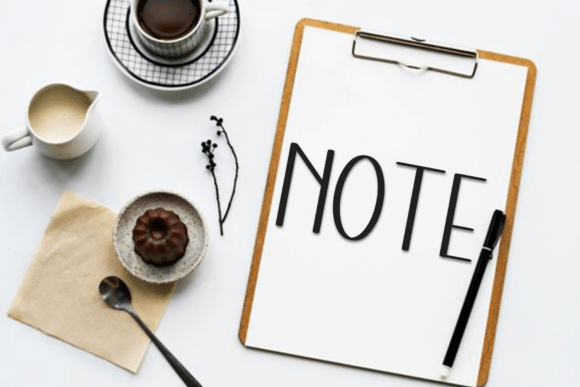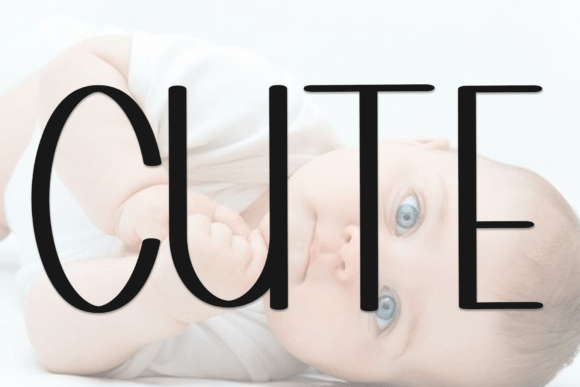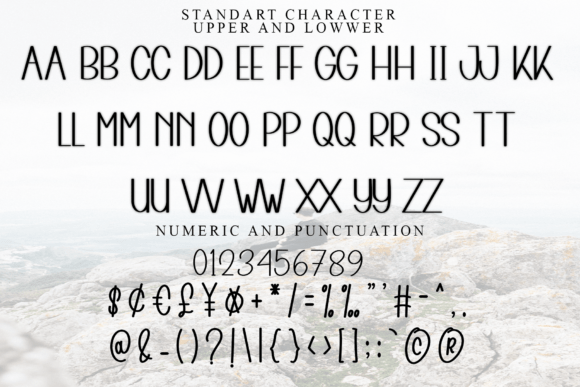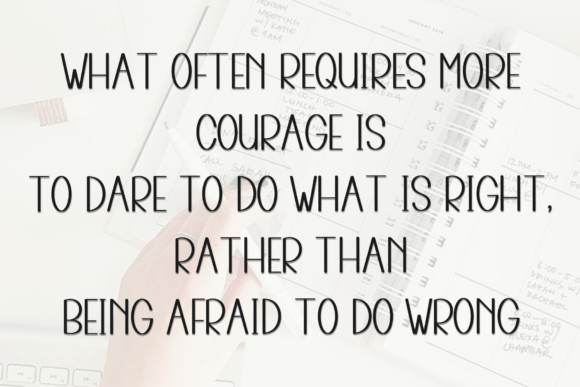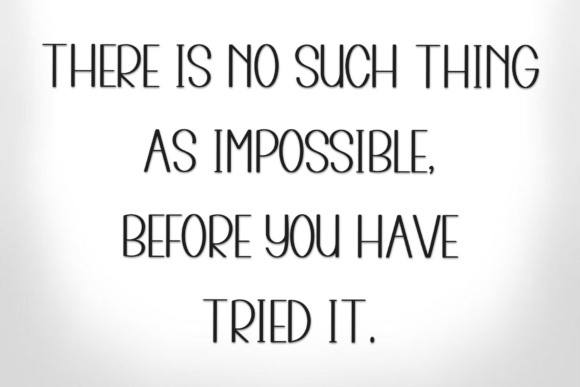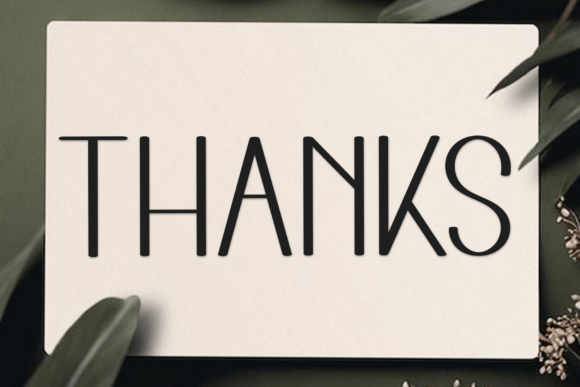
Introduction to Perfect Alphabet Font
Do you remember the thrill of decorating your room with festive holiday decorations as a child? The twinkling lights, the colorful ornaments, and the joy of creating something magical with your family and friends. As a designer, you’re likely no stranger to capturing that same magic in your creative projects. And what better way to do so than with the Perfect Alphabet Font?
This enchanting typeface is a holiday designer’s dream come true. With its whimsical flair and decorative elements, it adds a touch of wonder to any design. Whether you’re working on a greeting card, gift tag, or holiday-themed project, the Perfect Alphabet Font is the perfect design resource to bring your vision to life. And the best part? It’s PUA encoded, making it easy to access all of the amazing glyphs and ligatures with just a few clicks.
- Unique characteristic: each letter has been carefully crafted to maintain a consistent design language throughout the alphabet.
- Perfect for use in logos, typography-based art, and other creative projects where a high-quality alphabet font is required.
Honest Review: Perfect Alphabet Font
As a designer, I’m always on the lookout for high-quality design resources to elevate my creative projects. The Perfect Alphabet Font caught my attention with its unique and playful style, making it perfect for a variety of applications.
- ✨ High-quality vector design with crisp lines and smooth curves
- ✨ Clear and readable letters, ideal for headings and titles
- ⚠️ Limited language support, which may be a concern for multilingual projects
- ⚠️ Not ideal for large-scale text, as it may lose its crispness and readability
Overall, the Perfect Alphabet Font is a solid addition to any designer’s toolkit. Its unique style and high-quality design make it perfect for creative projects that require a touch of personality. While it may have some limitations, it’s definitely worth considering for your next design venture.